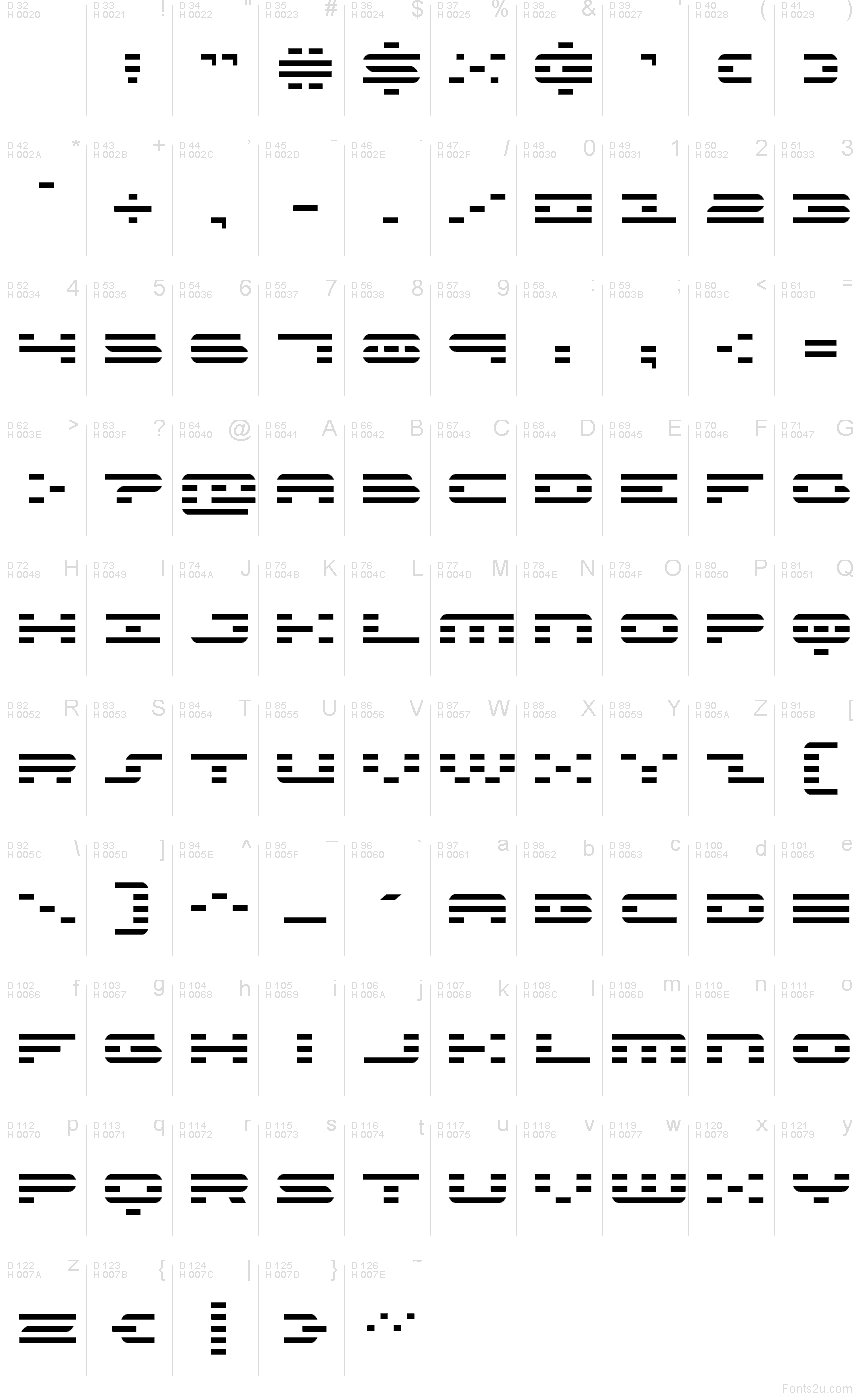
Nova Terra Title
Nova Terra Title font by Iconian Fonts is a free futuristic display typeface in the Nova Terra family. Its ultra-wide, low-profile letters slice across the line like glowing panels, broken by sharp gaps and layered horizontal bars. The rhythm feels mechanical and fast, as if the text were racing along a spaceship hull or a digital billboard, giving headlines a bold, cinematic presence.
Using Nova Terra Title, this free font shines on sci-fi game logos, tech product launches, esports branding, movie titles, synthwave album covers, and bold poster layouts. The tight, blocky spacing packs words into powerful strips of black and white, great for big, commanding headlines and short phrases. For supporting text, pair it with a clean, unobtrusive sans serif and let Nova Terra Title handle the loud, attention-grabbing moments.